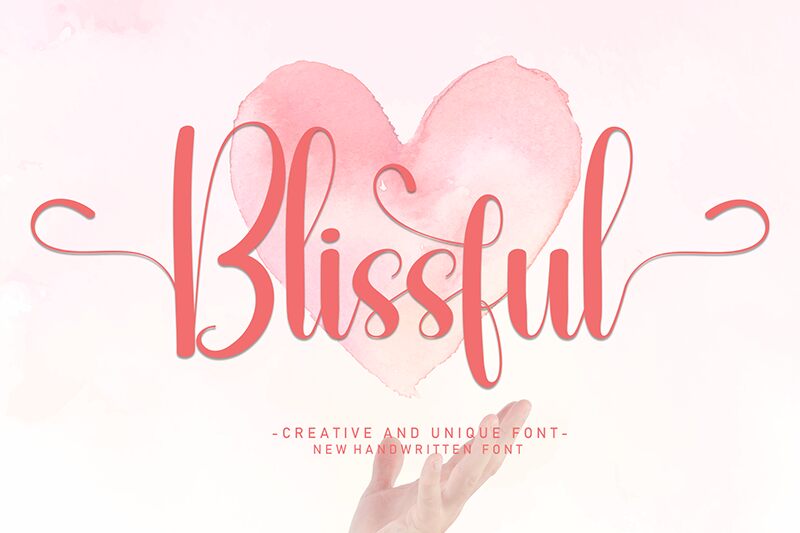
Blissful
Blissful font is a free calligraphy font from Andi Moz, an elegant hand-drawn set which manages to be both modern and expressive with its highly detailed lines and playful curves. The characters are drawn in a condensed format, creating airy breezy spaces which are further enhanced by the exaggerated intersections of strokes.
Use it in packaging designs, branding projects, headlines, magazines covers and pages, postcards or greeting cards. It would look very sophisticated on certificates or official documents. Apparel designs and stationery would also benefit from such a fine typeface.